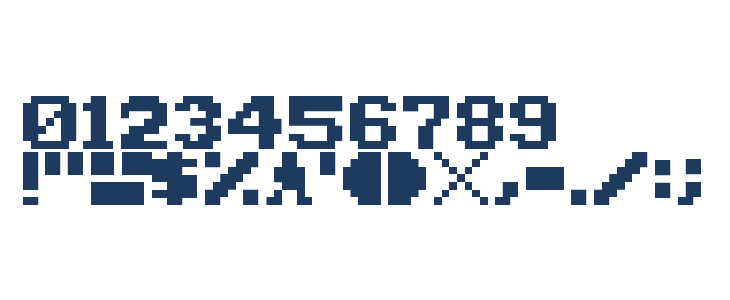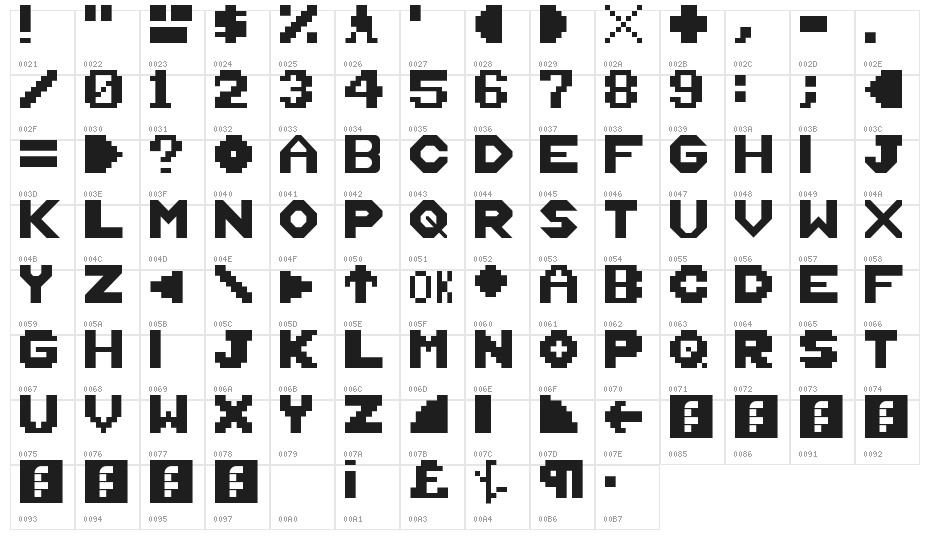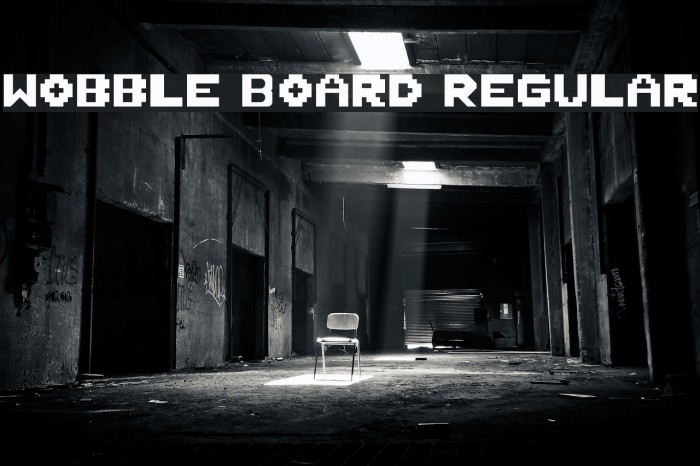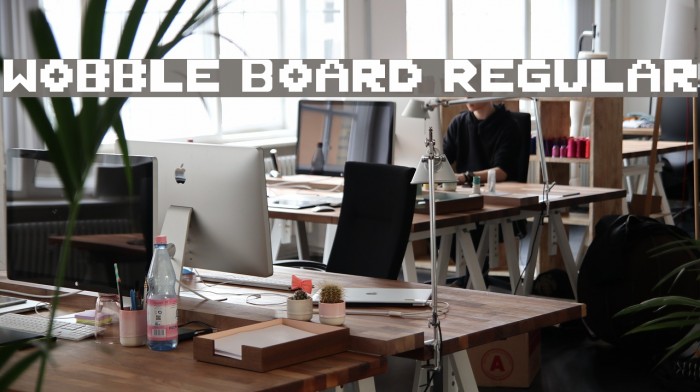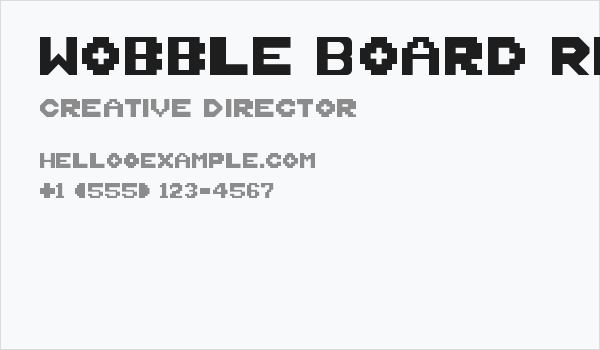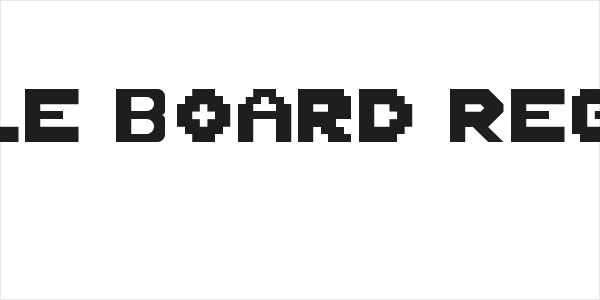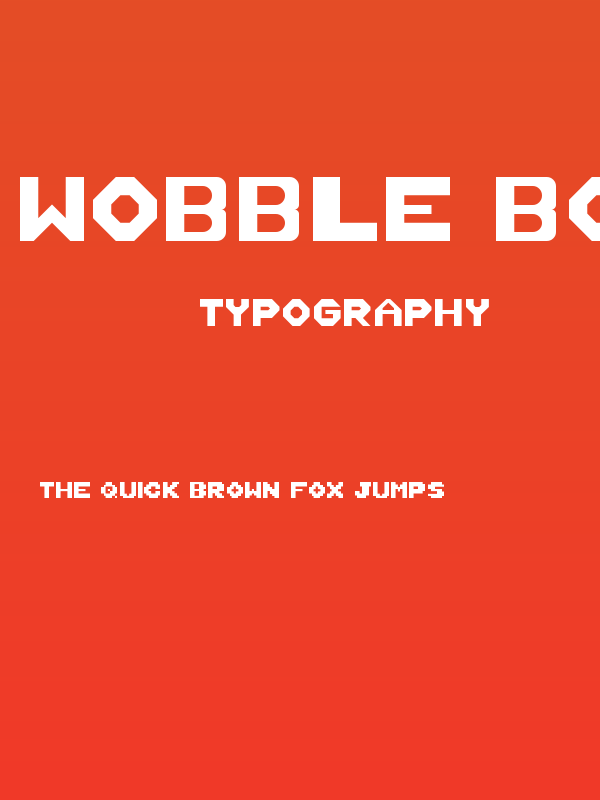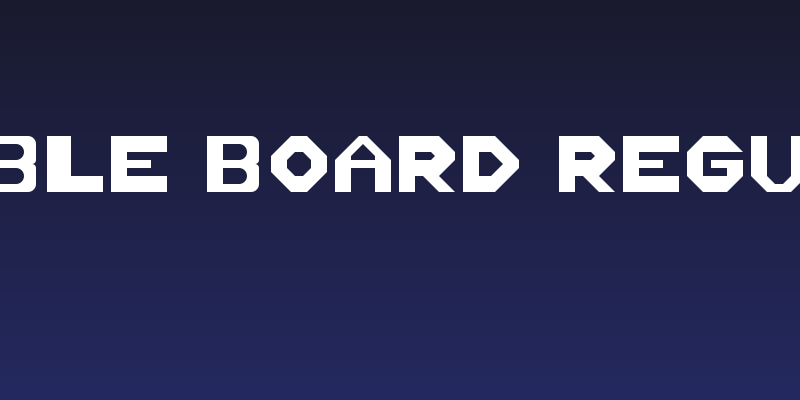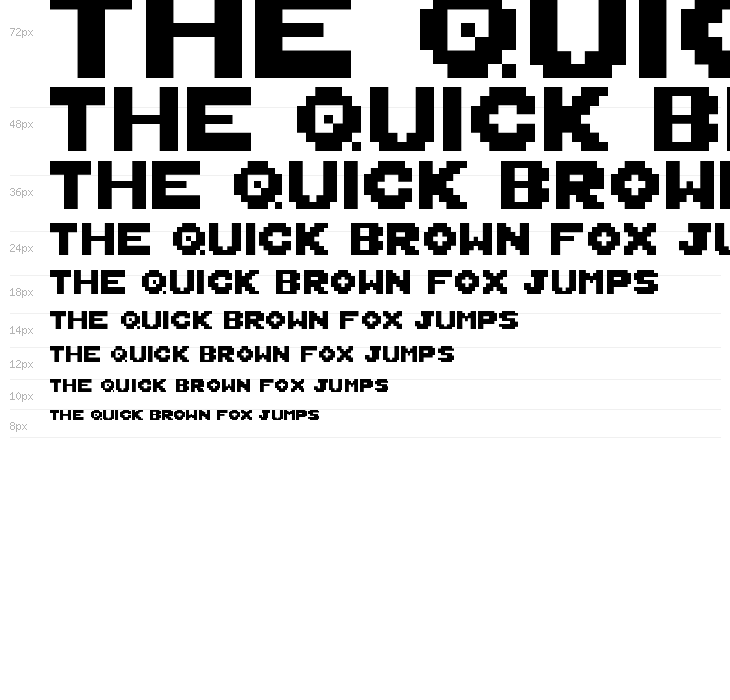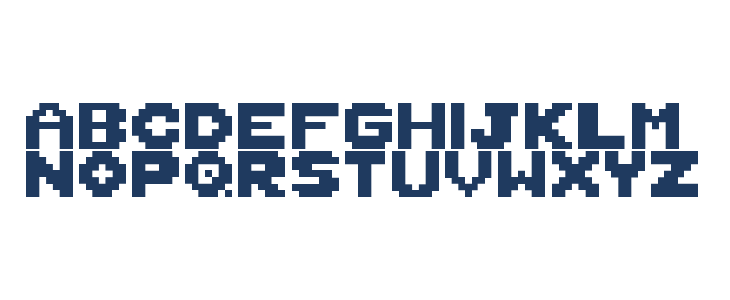
Wobble Board Regular Font
Wobble Board Regular Description
This font features a bold, pixelated design reminiscent of early digital displays and retro video games. Each character is constructed with a blocky, geometric style that emphasizes straight lines and sharp angles, creating a distinct and eye-catching appearance. The uppercase and lowercase letters maintain a consistent width, contributing to a uniform and cohesive look. Numbers and special characters follow the same pixelated theme, ensuring visual harmony across all text elements. The font's unique style makes it ideal for projects that aim to evoke nostalgia or a tech-inspired aesthetic.
| Overall Style | Retro, Digital |
| Proposed Projects | Ideal for video game designs, tech-themed posters, retro branding, and digital art projects. |